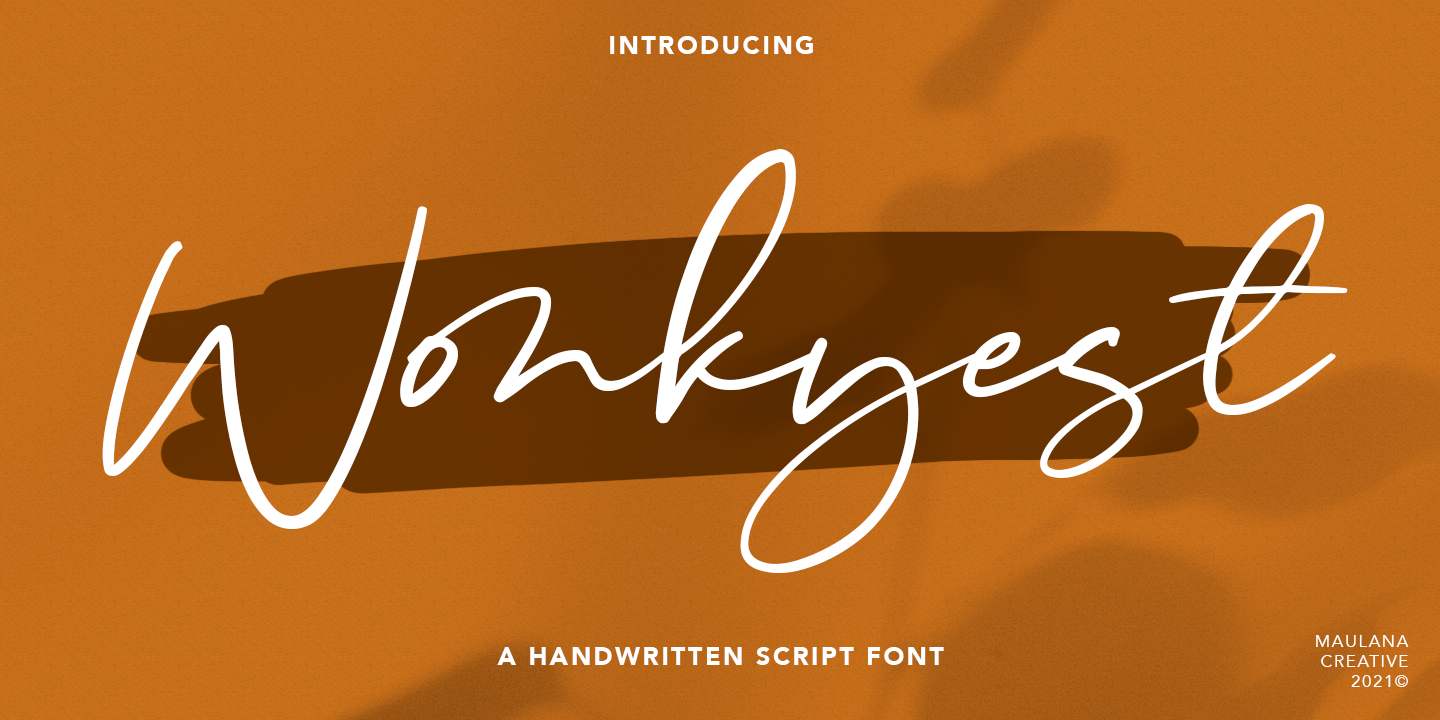
Wonkyest Font is perfect for children's book illustrations, playful logo designs, comic book lettering, quirky poster designs, fun party invitations, cartoon character branding, creative toy packaging, whimsical greeting cards, animated movie titles, educational children's materials, carnival signage, and entertainment industry promotions.
What makes Wonkyest Font so exciting is its deliberately irregular and bouncy character shapes that create an instant sense of fun and playfulness. This delightfully unconventional typeface features wobbly baselines, varying letter heights, and quirky angles that give text a hand-drawn, spontaneous feel, making it perfect for projects that need to communicate joy, creativity, and a carefree spirit that appeals to both children and adults.
The Wonkyest Font family typically includes multiple weight variations with different levels of wonkiness and playful alternates that maintain the quirky aesthetic while offering designers flexibility in creating varied visual hierarchies and dynamic layouts.
Whether you're designing children's educational materials or creating eye-catching advertisements for entertainment venues, Wonkyest Font Free Download delivers the perfect solution for projects requiring a touch of whimsy and unconventional charm. This versatile font breaks traditional typography rules in the most delightful way, making it an essential tool for designers who want to inject personality, humor, and creative energy into their visual communications.